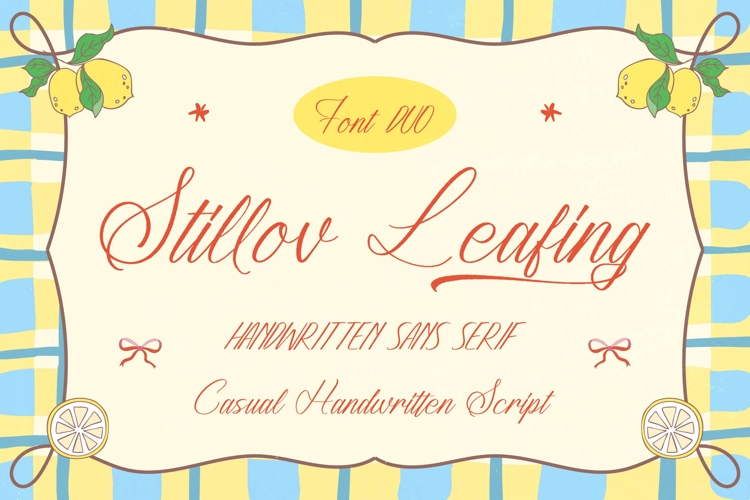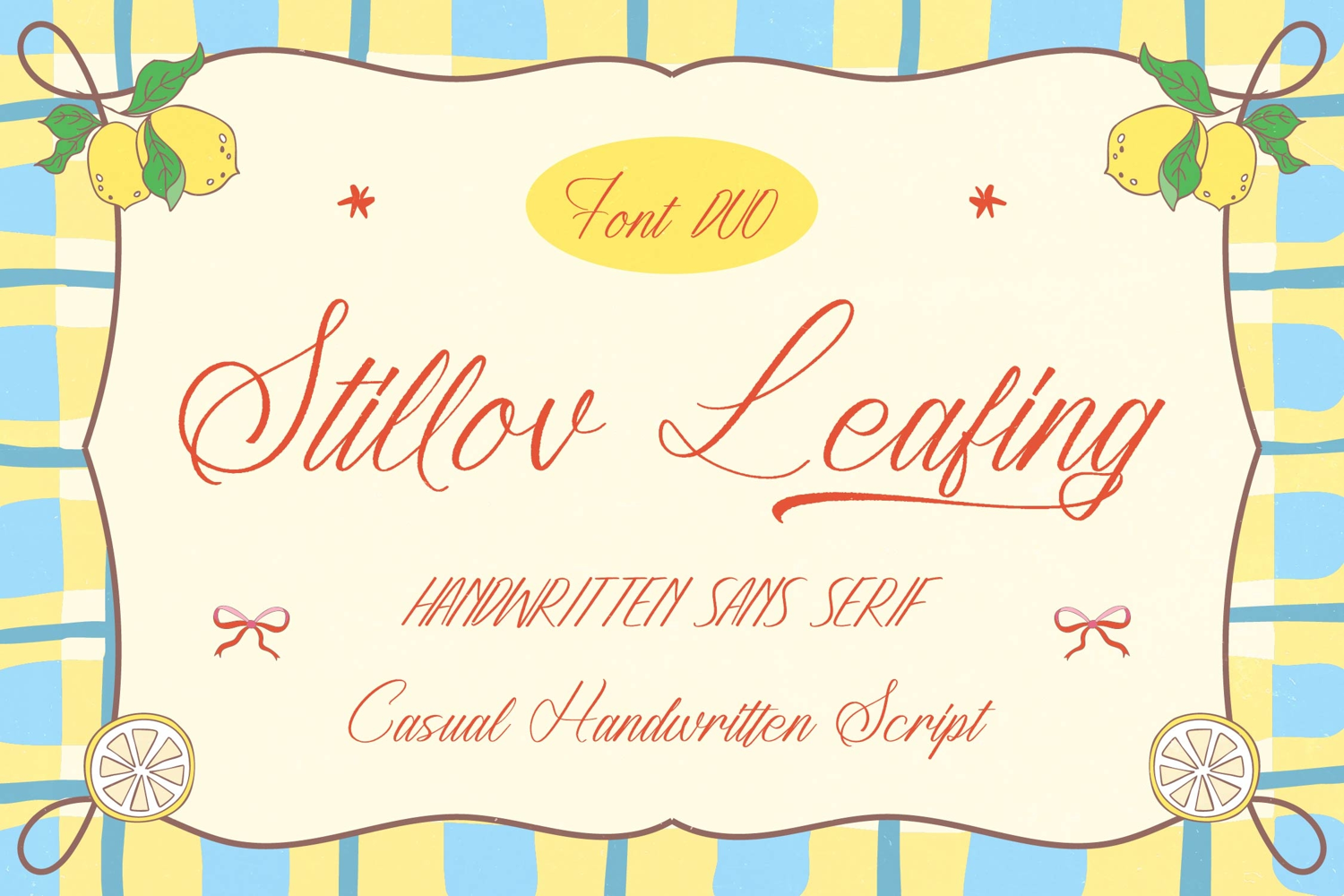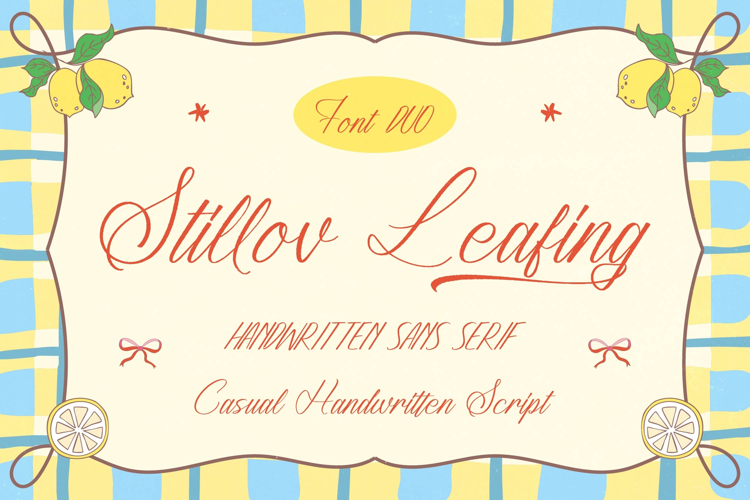
Stillov Leafing - Casual Handwritten Script
Elevate your creative vision with the timeless elegance of Stillov Leafing - Casual Handwritten Script. This typeface captures an organic, hand-crafted aesthetic that balances sophisticated script with a relaxed, approachable personality. Its fluid lines and natural rhythm provide a genuine human touch to any digital or print canvas, making it a standout choice for those seeking a bespoke typographic experience.
Designed for maximum functional flexibility, Stillov Leafing - Casual Handwritten Script excels in both style and performance across various platforms. With its extensive multilingual support, Stillov Leafing - Casual Handwritten Script adapts seamlessly across global markets, making it incredibly versatile for international projects. The smooth ligatures and carefully balanced kerning ensure high readability while maintaining a unique, artisan-inspired flair that resonates with diverse audiences worldwide.